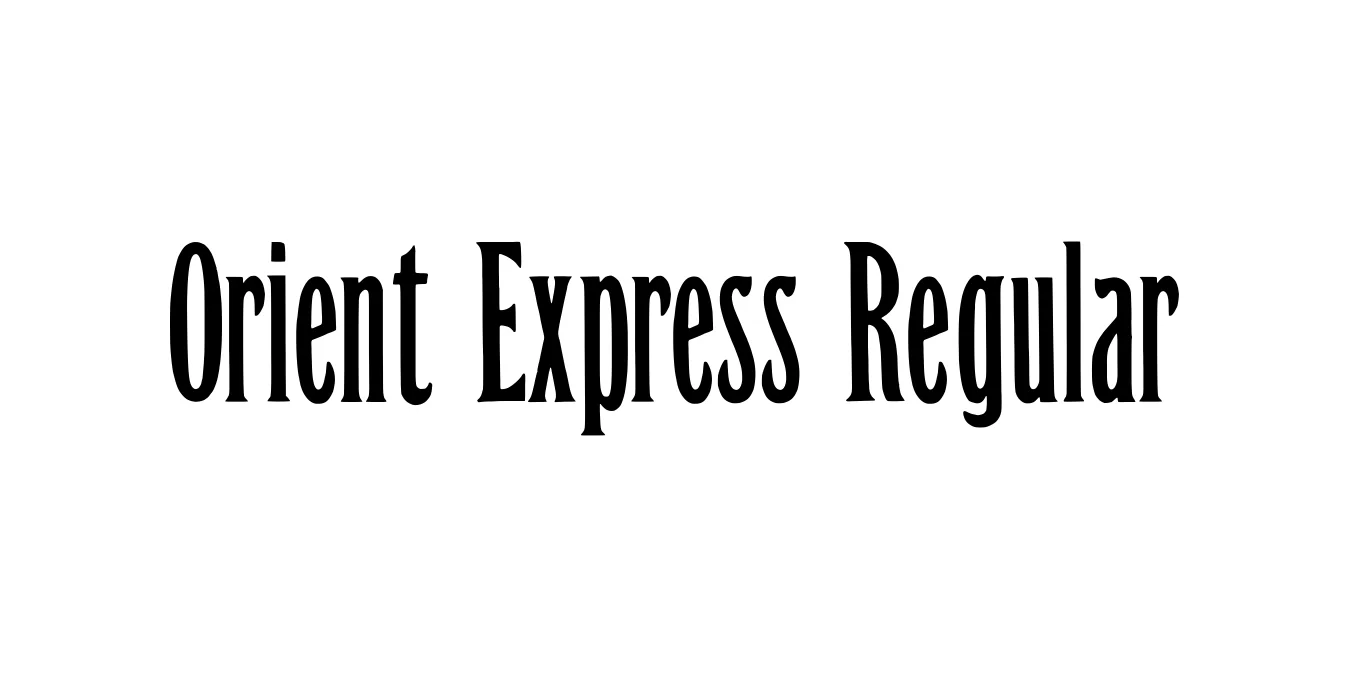
Orient Express Regular
Designed by Nick Curtis
| Font Name | Orient Express |
| Category | Display / Art Deco |
| Designer | Nick Curtis |
| Similar Fonts | Broadway, Peignot, Cassandre, Metropolis |
Orient Express Regular is a display typeface that captures the elegance and mystery of the early 20th-century luxury train travel. Its design is rooted in the Art Deco movement, featuring sleek, geometric lines and a sophisticated aesthetic that evokes a sense of timeless glamour and high-society prestige.
This font is particularly noted for its high-contrast strokes and distinctive decorative elements, making it an ideal choice for projects that require a touch of vintage prestige. Whether used for branding or editorial layouts, it provides a unique visual identity that stands out in modern digital design by blending historical charm with modern legibility.
Orient Express Regular Best Uses
High-end logos and identity systems looking for a classic feel.
Striking headlines for magazines and period-piece posters.
Luxury product labels, perfume bottles, and premium boxes.
Hero sections for sophisticated lifestyle or travel websites.